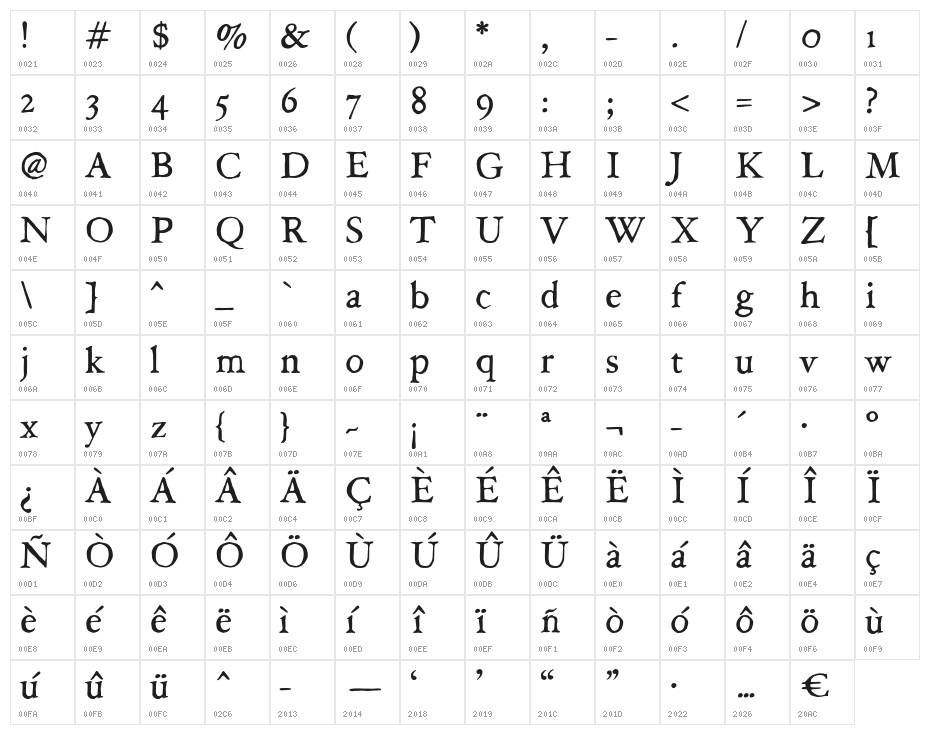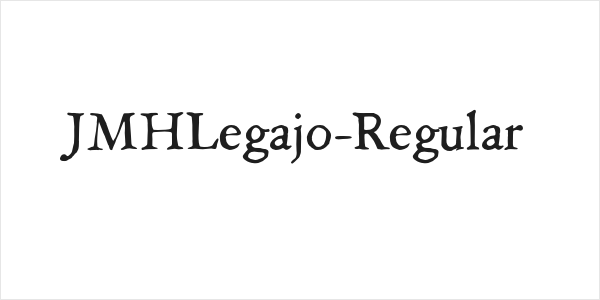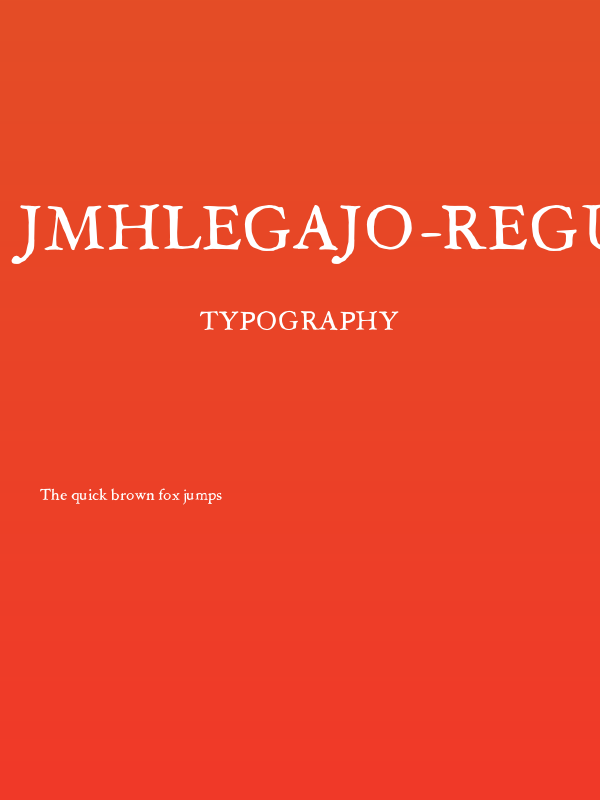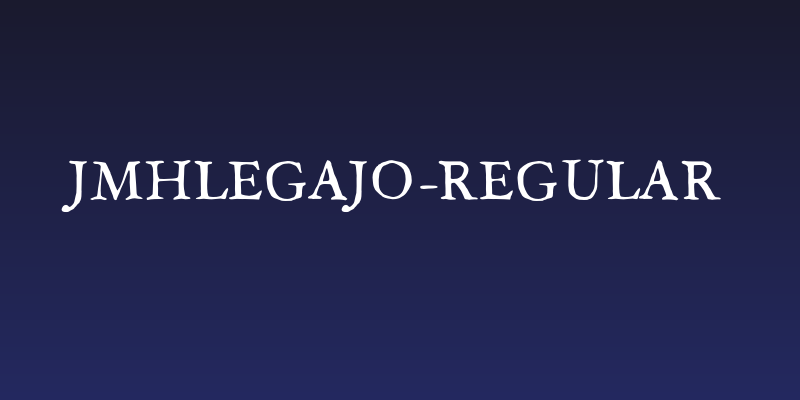
JMHLegajo-Regular Font
JMHLegajo-Regular Description
This font features a classic and slightly irregular serif style, reminiscent of historical manuscripts. The characters have a hand-drawn quality with subtle variations in stroke width, giving it an organic and authentic feel. The uppercase letters are bold and commanding, while the lowercase letters maintain a consistent flow with distinctive serifs. Numbers are elegantly styled, matching the overall vintage aesthetic. Special characters are uniquely crafted, adding to the font's charm and versatility.
| Proposed Projects | Ideal for historical documents, book covers, invitations, and branding that requires a touch of elegance and tradition. |